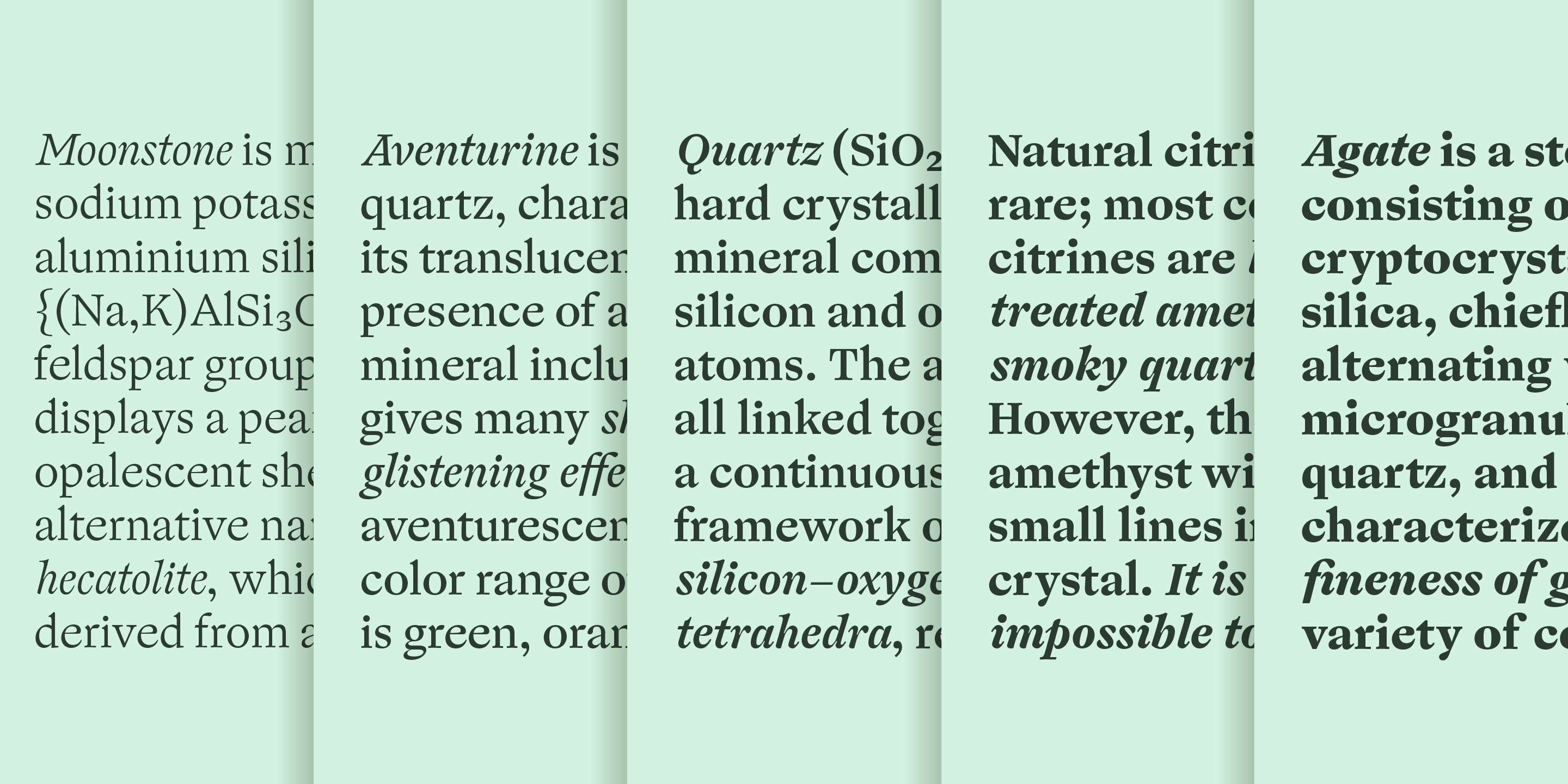
Ogg Text Font is perfect for expressive projects including contemporary literary publications, artistic magazine layouts, creative book typography, cultural exhibition materials, modern poetry collections, experimental editorial designs, avant-garde brand identities, and innovative publishing concepts. This distinctive typeface brings typographic personality and creative expression to any design project.
What makes Ogg Text Font exciting is its bold departure from conventional text fonts through dramatic character variations and expressive letterforms that transform ordinary text into visual art. The innovative design features striking contrasts and unique proportions that create dynamic rhythm in reading while maintaining surprising legibility despite its unconventional appearance. This font delivers the perfect fusion of artistic experimentation and functional typography that pushes creative boundaries.
The Ogg Text Font family typically includes multiple weights with expressive styling, complete uppercase and lowercase alphabets featuring dramatic character variations, numerals, punctuation, and artistic symbols. The design incorporates unconventional characteristics and creative elements that enhance the experimental aesthetic. Premium versions may include stylistic alternates, decorative ligatures, and additional expressive characters perfect for artistic and cultural applications.
Whether you're designing for creative publishers, cultural institutions, or experimental brands, Ogg Text Font Free Download delivers the artistic boldness that distinguishes innovative design work from conventional typography. Its expressive presence makes it ideal for memorable publications and communications that need to convey creativity and artistic vision. The font's experimental heritage ensures it communicates innovation and cultural awareness, making it perfect for any project requiring the pioneering aesthetic of contemporary typography and creative expression.